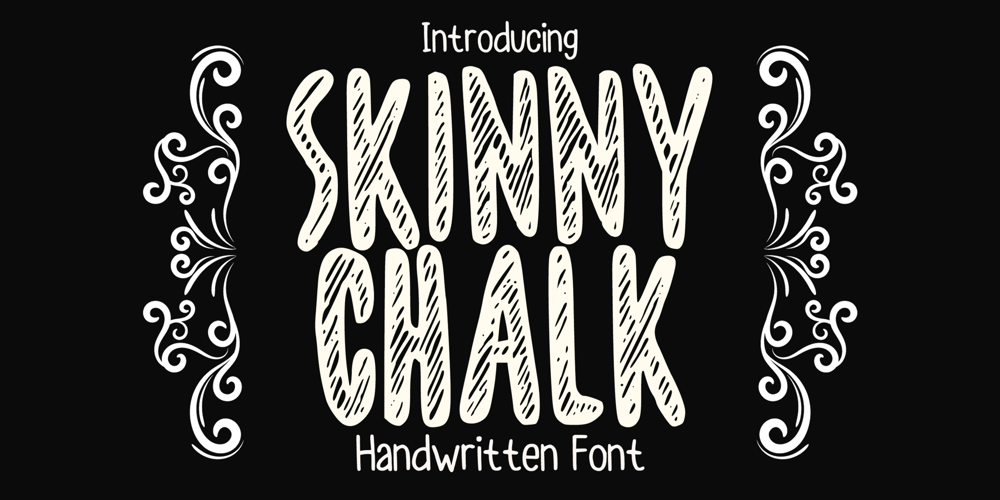
Skinny Chalk
Skinny Chalk font
Skinny Chalk Font Family was designed by Gabriel Valentinus and published by Mvmet. Skinny Chalk contains 1 styles and family package options. Skinny Chalk is a versatile and playful hand-drawn display font. It works great for creating cool designs that scream for attention. It’s ideal for anything ranging from t-shirts, book designs, restaurant menu, blog writing, greeting cards to stickers, or anything that needs a casual touch. Fall in love with its incredibly cool style, and use it to create lovely designs!